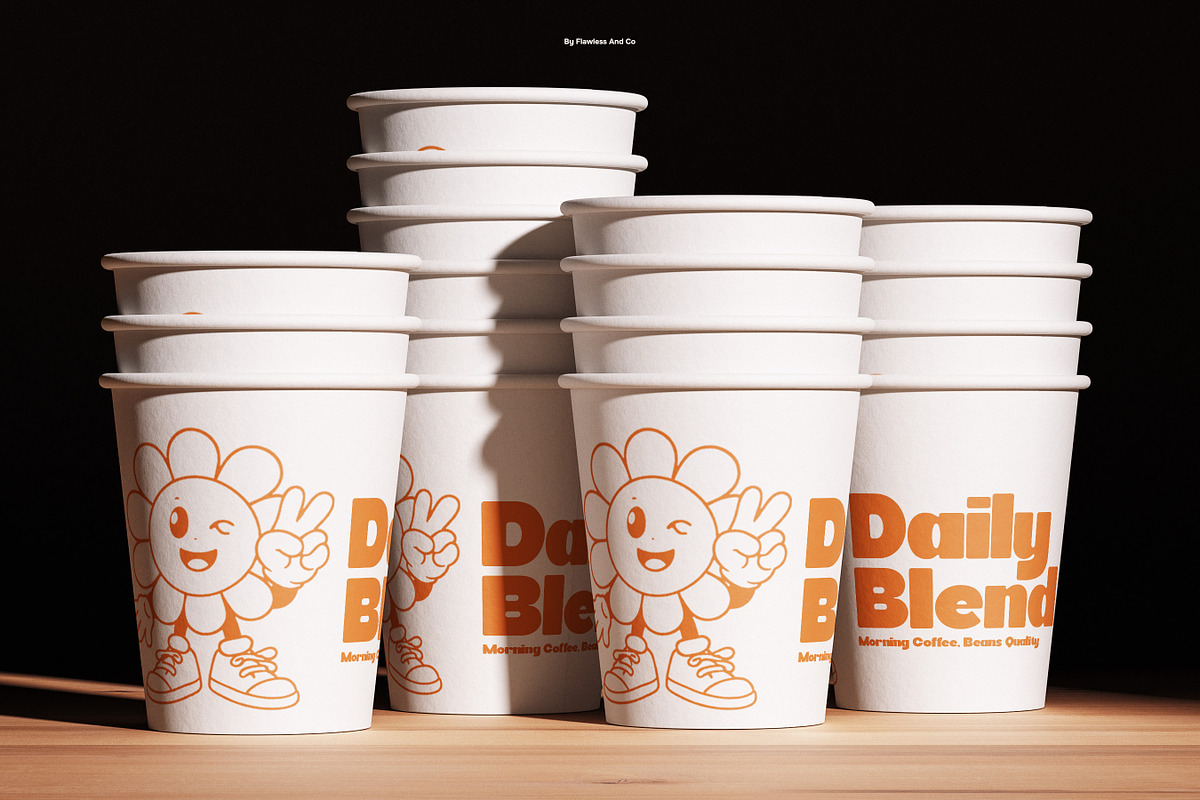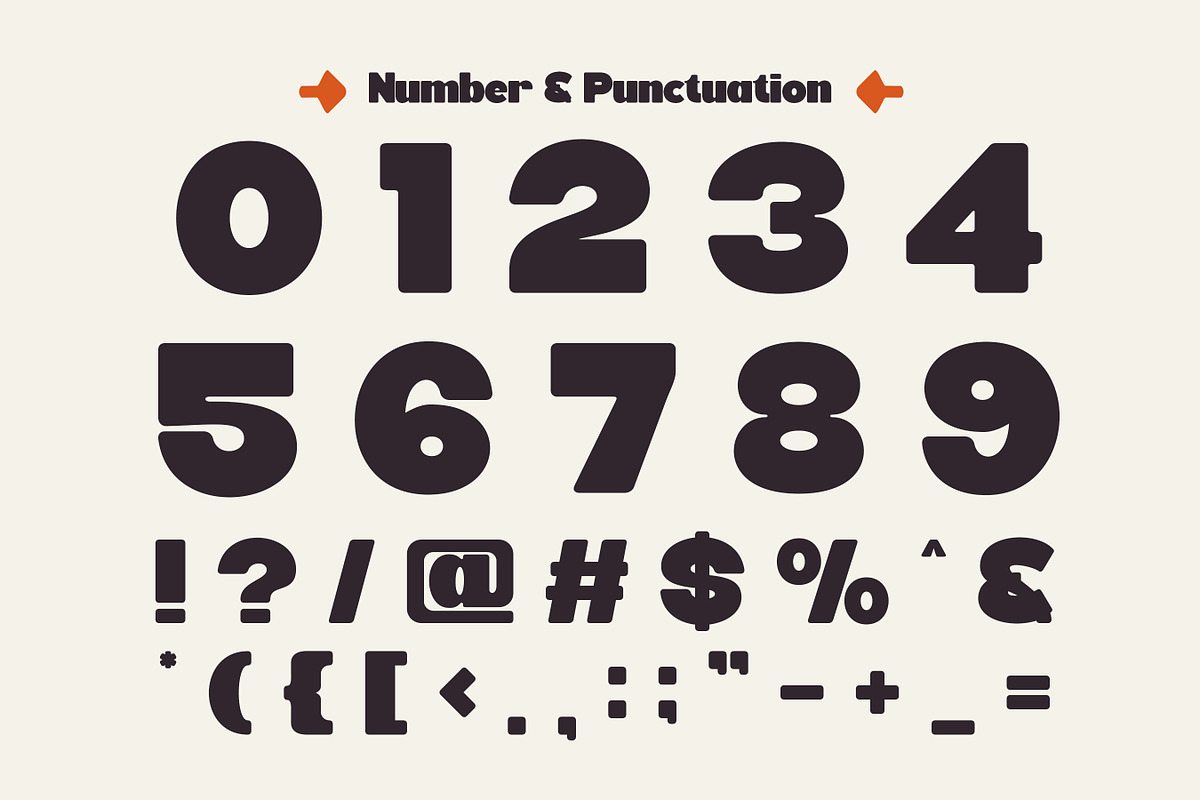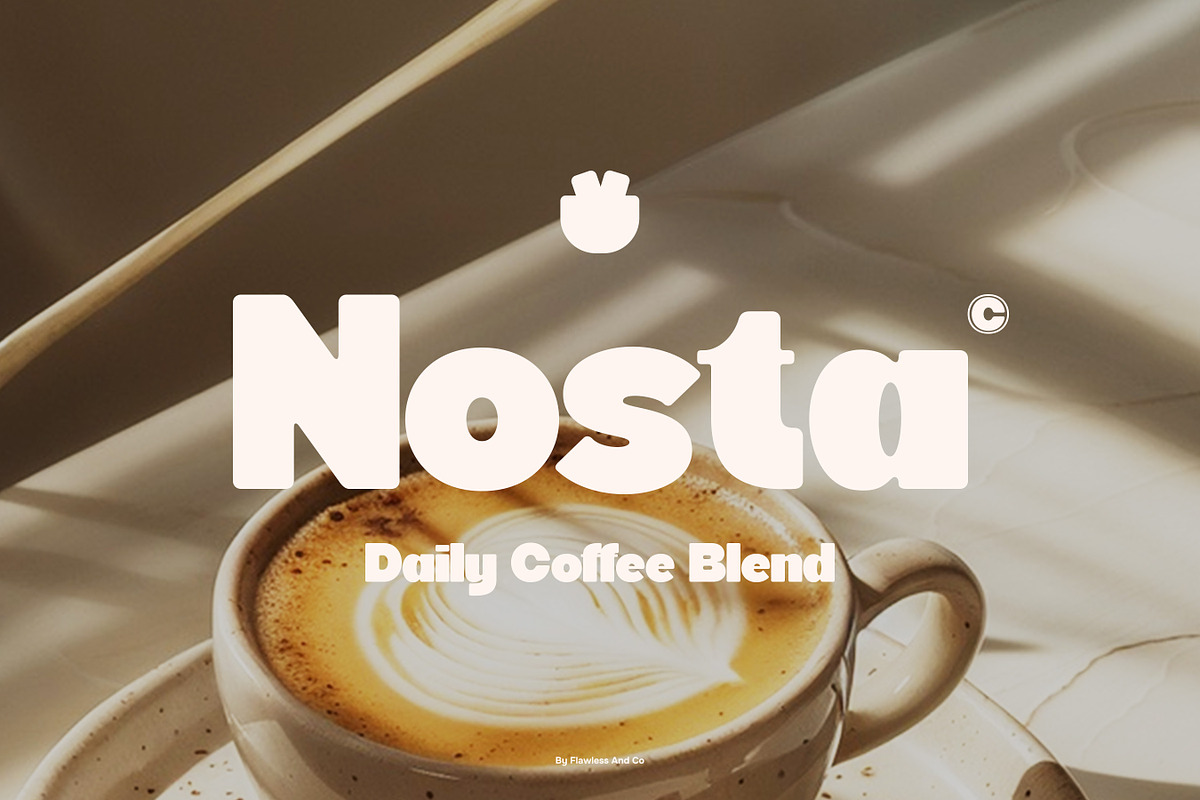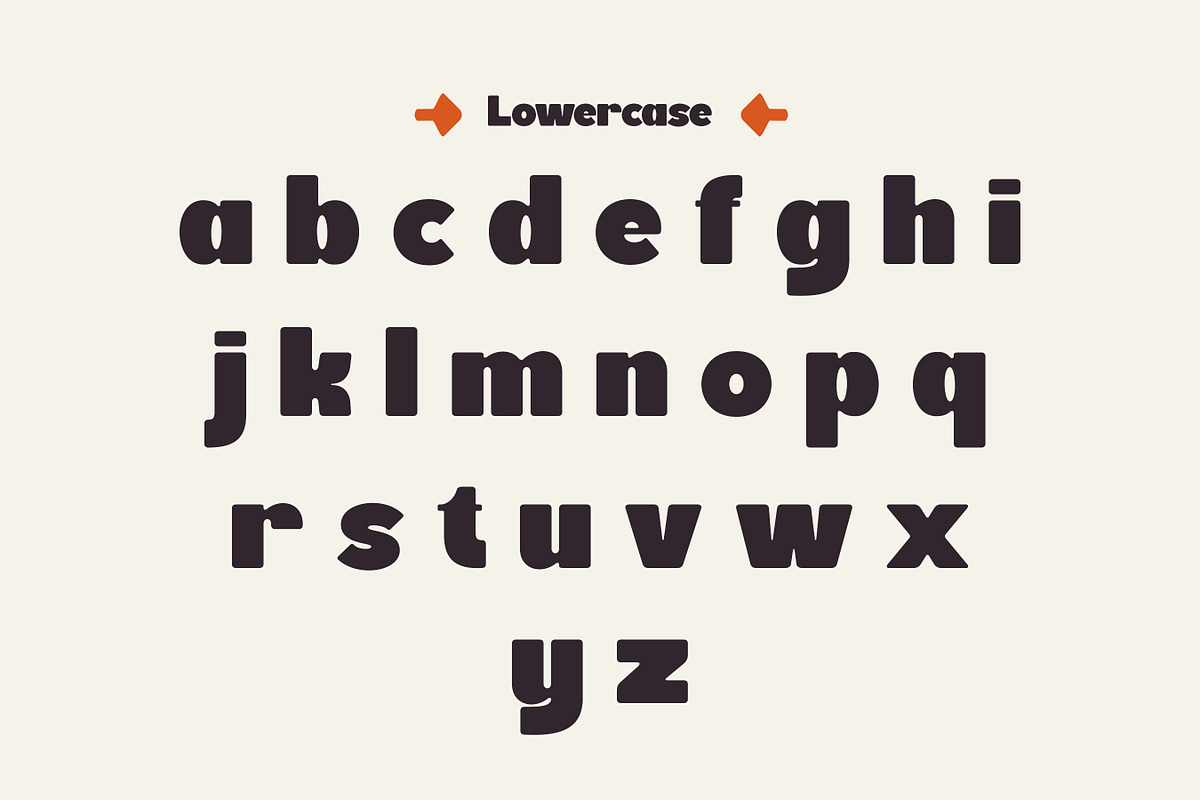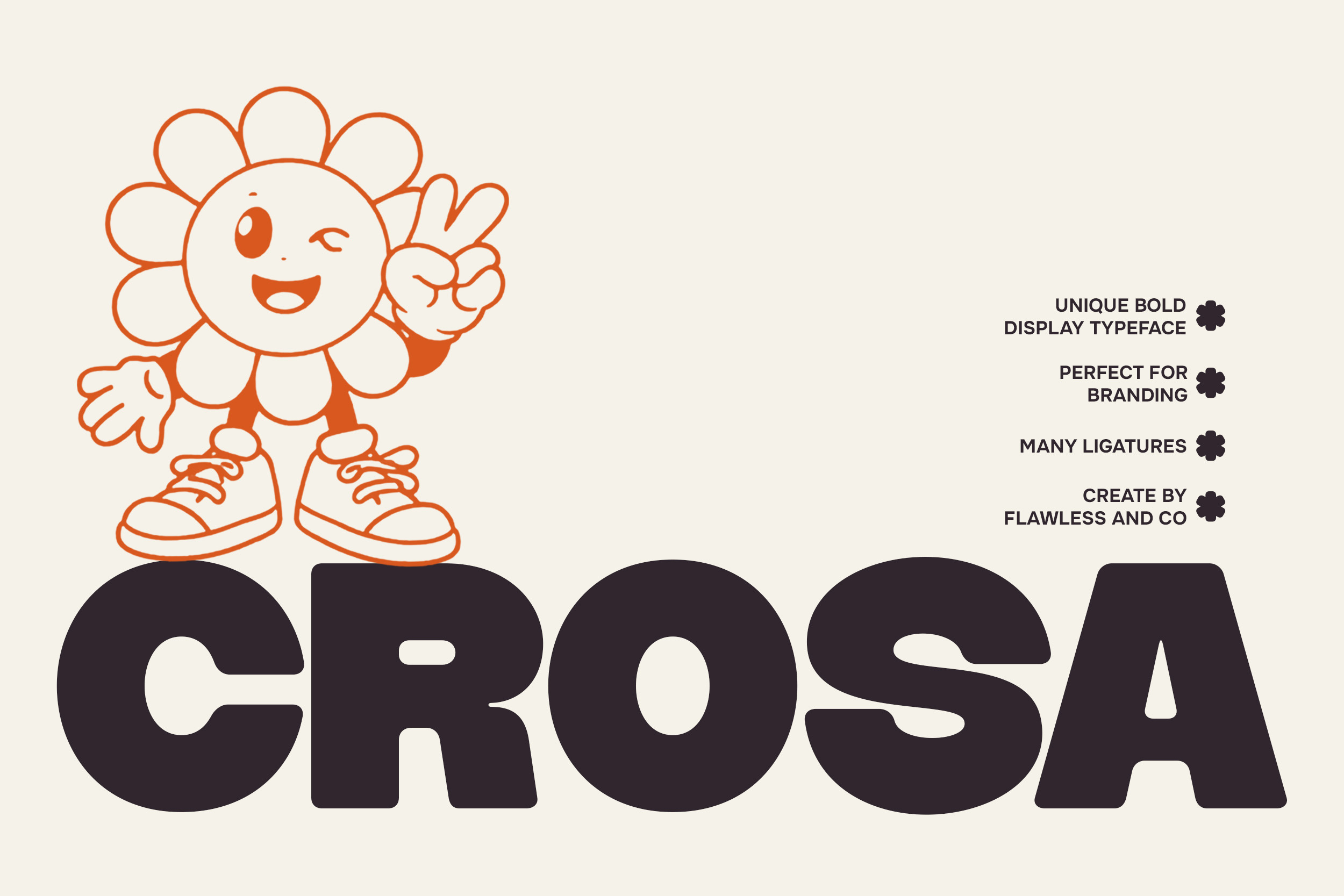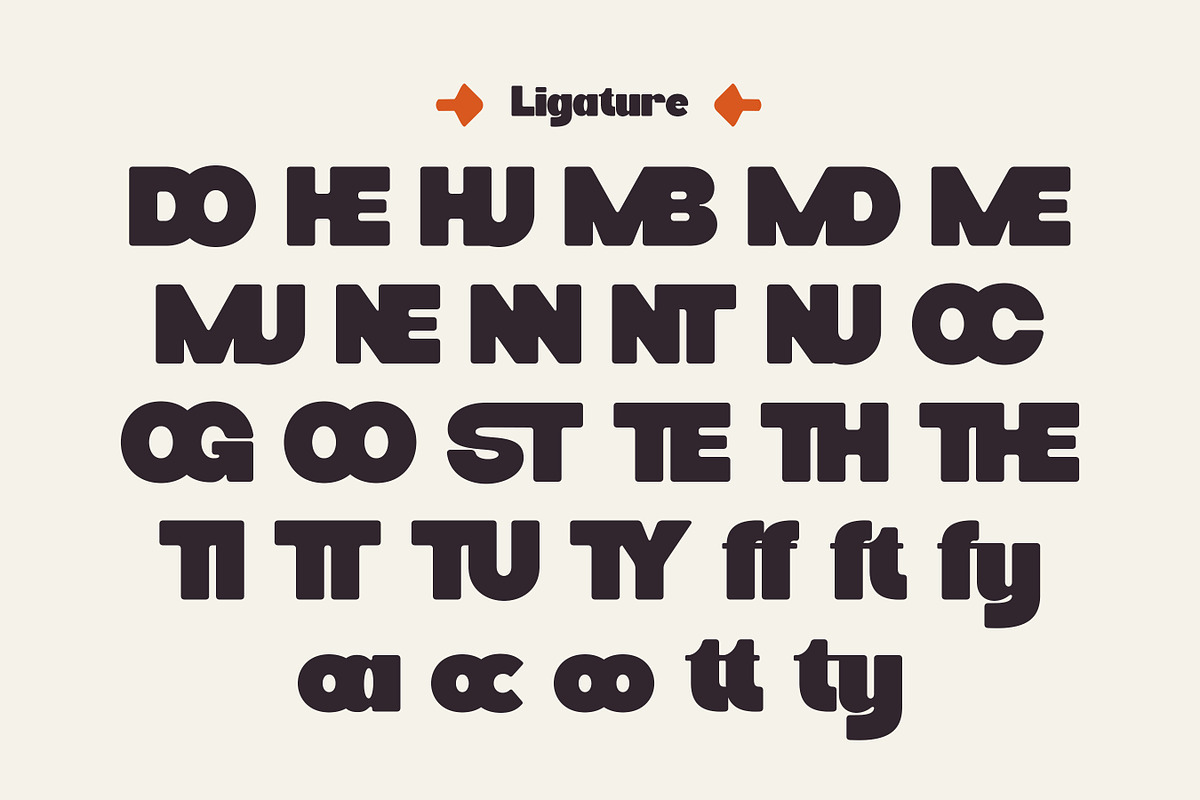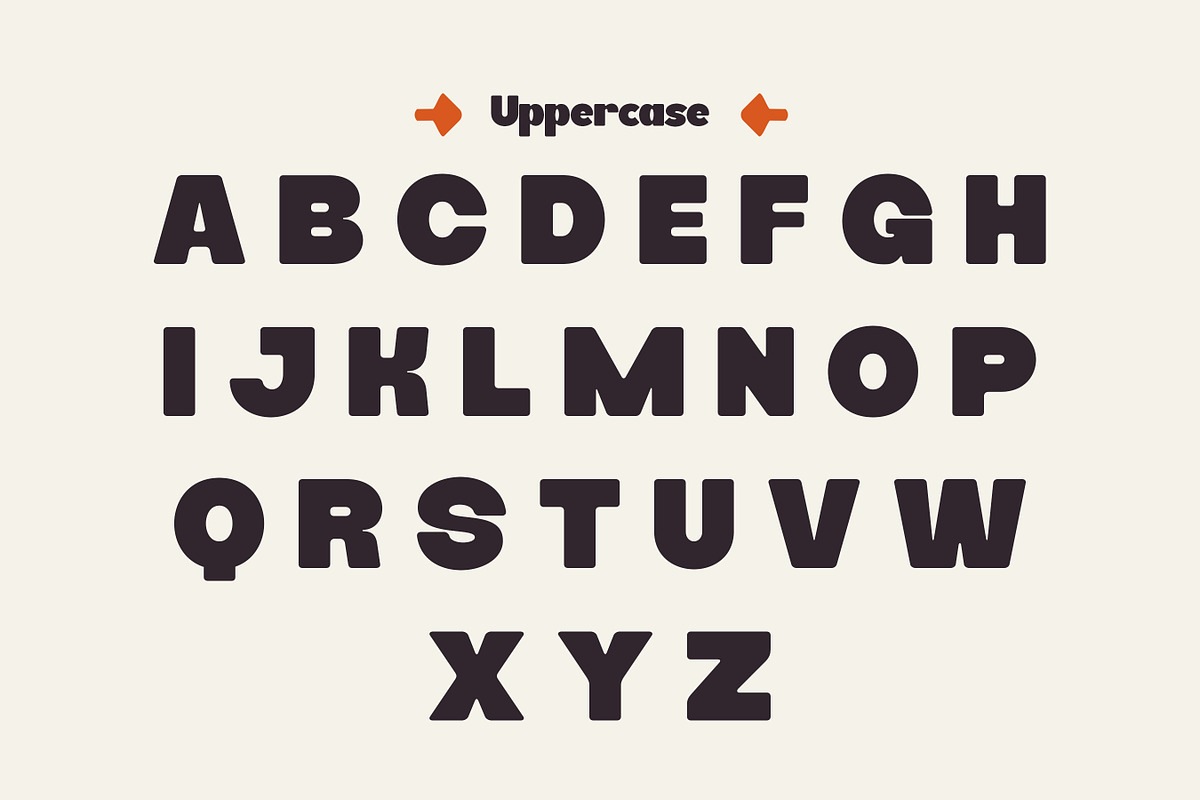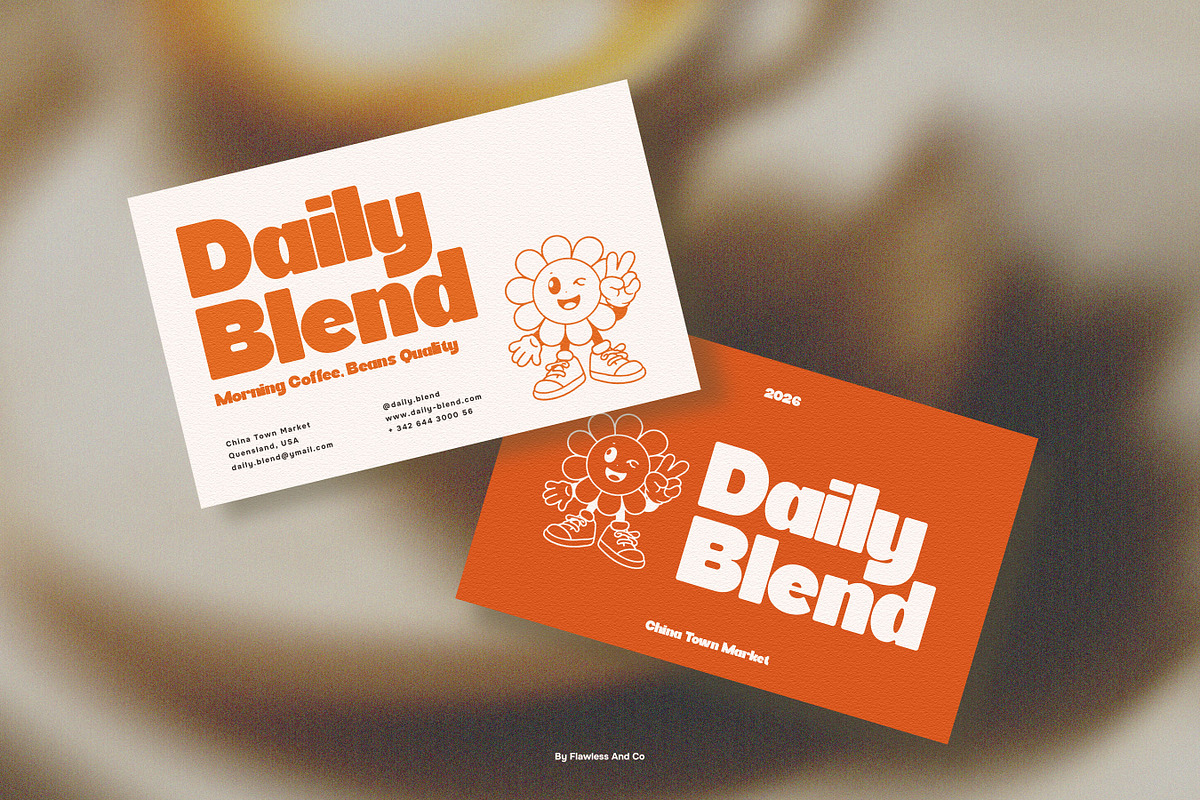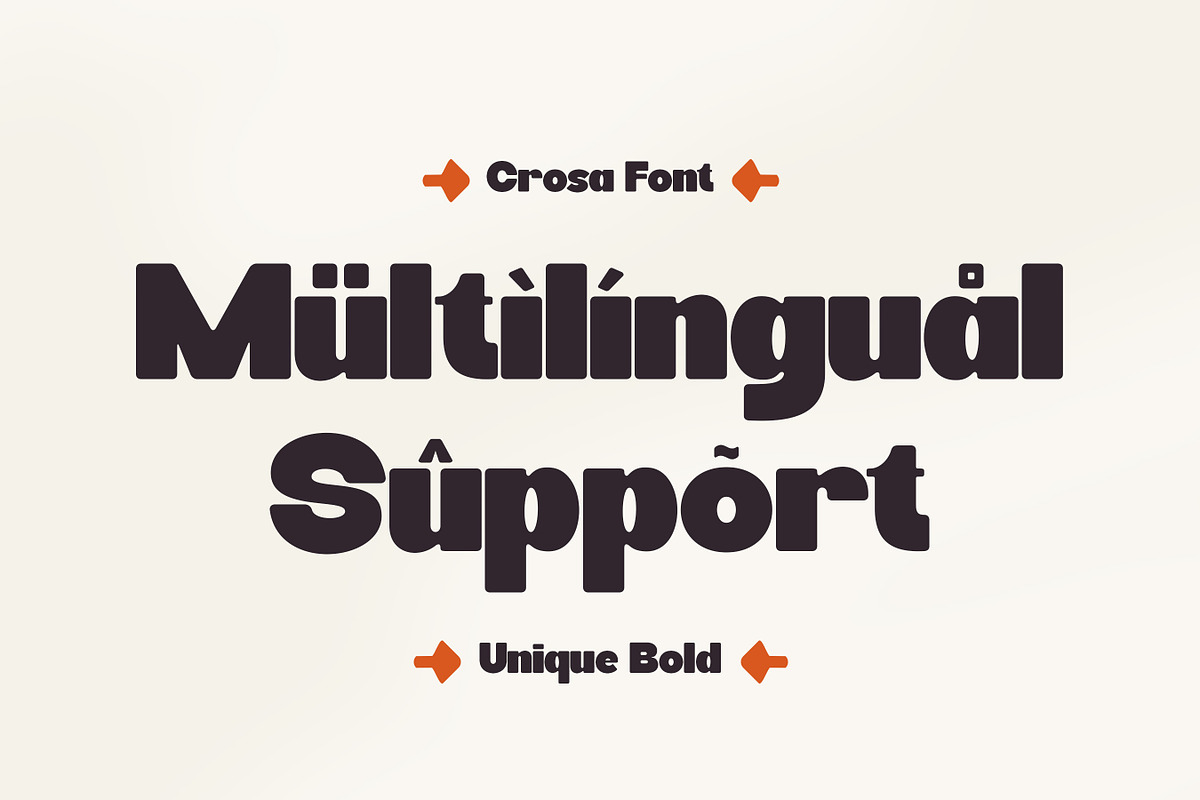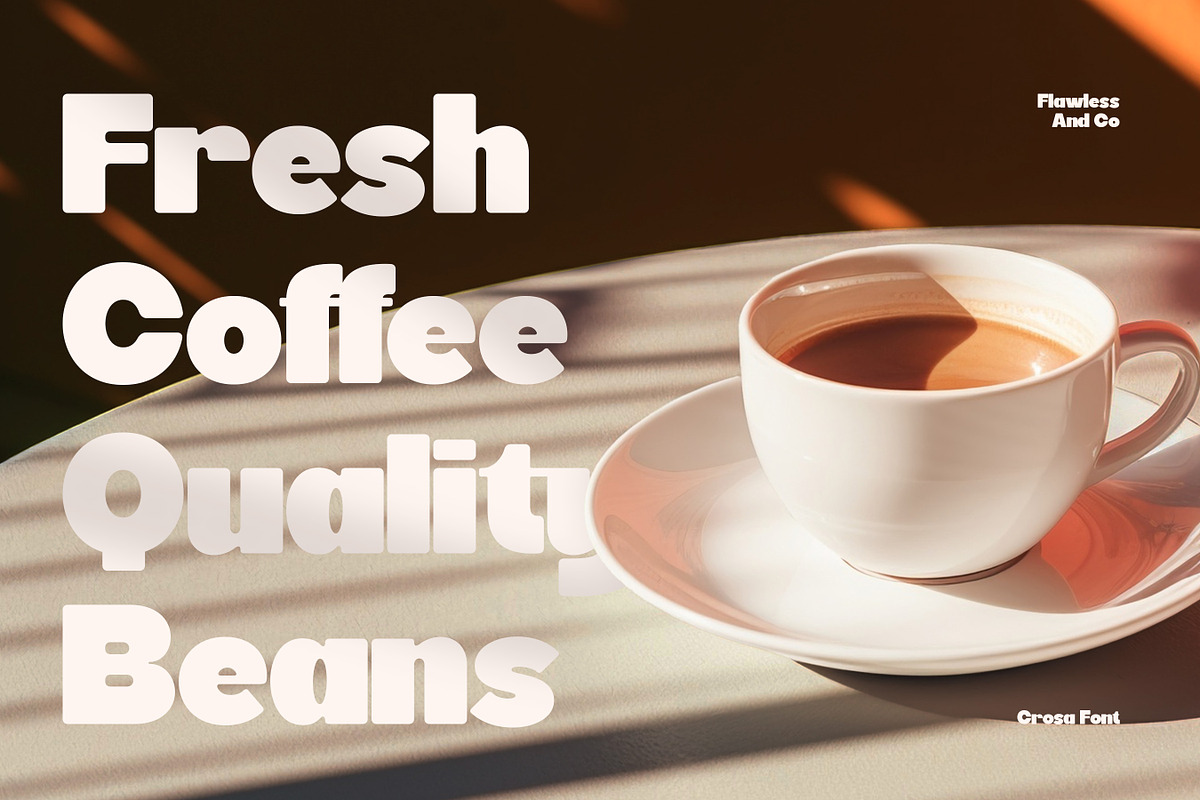
Crosa - Unique Bold Display Font
Crosa – Unique Bold Display Font
Crosa is a bold display font with a unique and cheerful personality, created to make your designs feel lively and engaging. Its distinctive letterforms and playful proportions give it a strong visual identity while maintaining a fun and approachable tone. Designed with a balance of bold structure and creative curves, Crosa delivers excellent visibility and impact, especially in large sizes. The font brings a sense of excitement and creativity, making it perfect for projects that aim to capture attention and communicate a positive, energetic vibe.
Who Should Use Crosa?
Crosa is perfect for creatives, designers, and brands looking for a bold display font that combines uniqueness with a cheerful and friendly feel.
Suitable For:
- Logo and branding projects
- Posters and advertising materials
- Children’s and playful themes
- Packaging and product labels
- Social media and digital content
- Event and celebration designs
- Website headers and banners
- Creative typography layouts